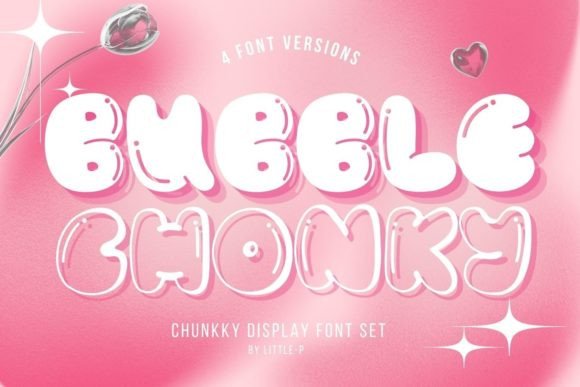
Step into the whimsical world of Bubble Chonky, where cuteness meets modern elegance! This enchanting font family, hailing from the creative minds at Issie_Studio, is a treasure trove of playful possibilities.
Bubble Chonky's spherical and chubby shape oozes charm, making it the perfect choice for designs that demand attention and evoke joy. Four distinct design styles provide endless versatility, allowing you to tailor your creations to perfection.
Whether you're crafting eye-catching display ads, creating delightful merchandise, or designing your brand's identity, Bubble Chonky adds a touch of whimsy that will captivate your audience. Its charming curves and playful spirit are sure to leave a lasting impression, transforming your projects into delightful masterpieces. Immerse yourself in the world of Bubble Chonky and let your imagination soar!